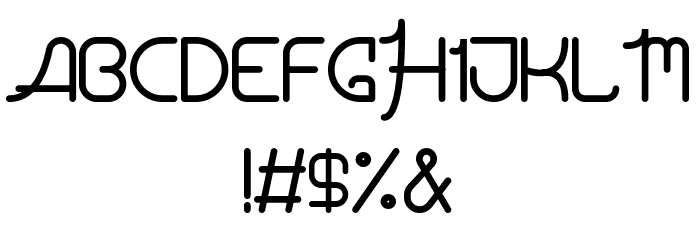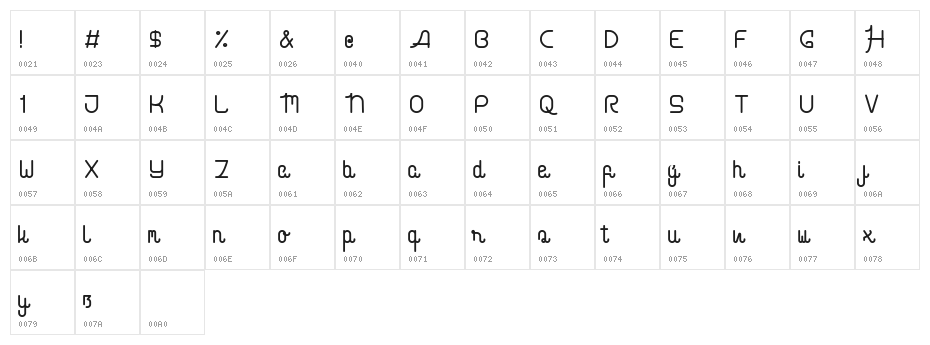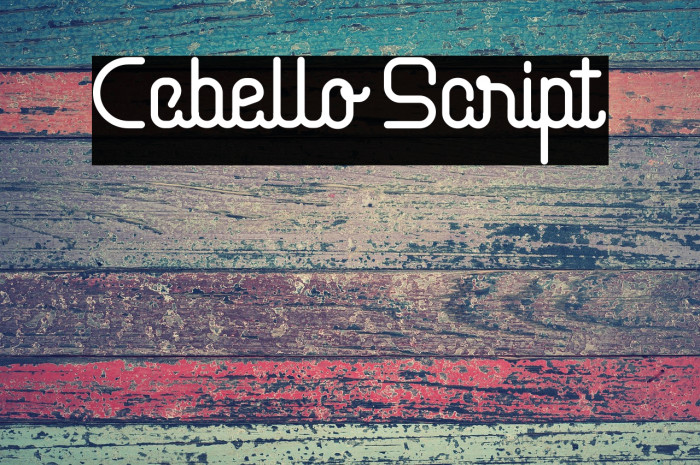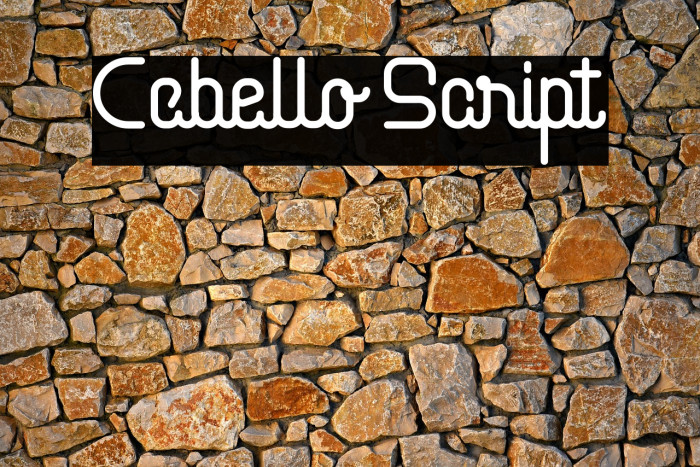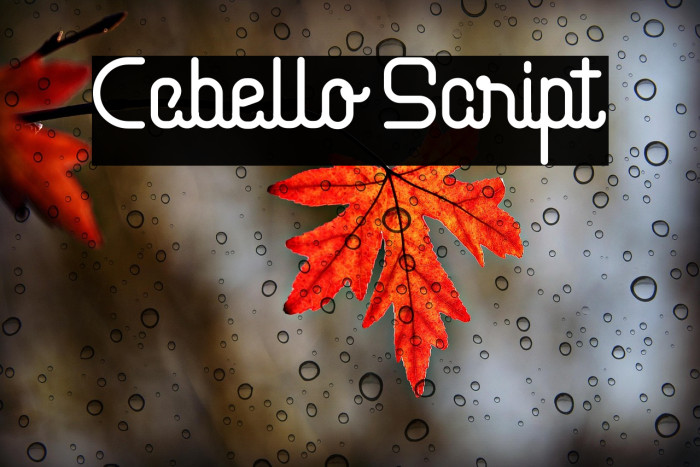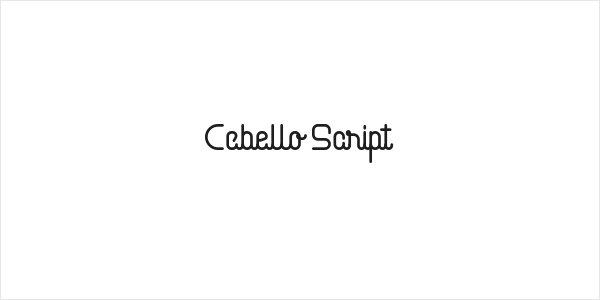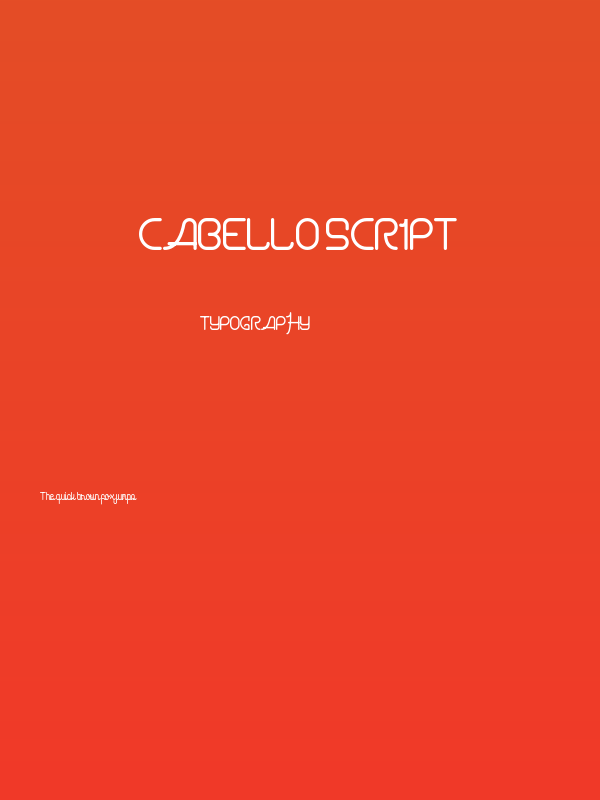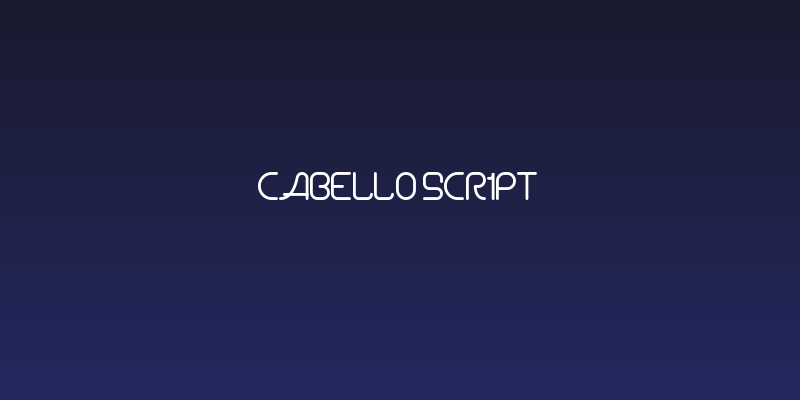
Cabello Script Font
Cabello Script Description
This font features a unique script style with a modern twist, characterized by its continuous, flowing lines and rounded edges. The uppercase letters are bold and structured, while the lowercase letters maintain a more fluid and connected appearance, reminiscent of cursive handwriting. The numbers and special characters are designed to complement the overall aesthetic, maintaining the same line thickness and curvature. This font stands out with its playful yet sophisticated look, making it versatile for various design applications.